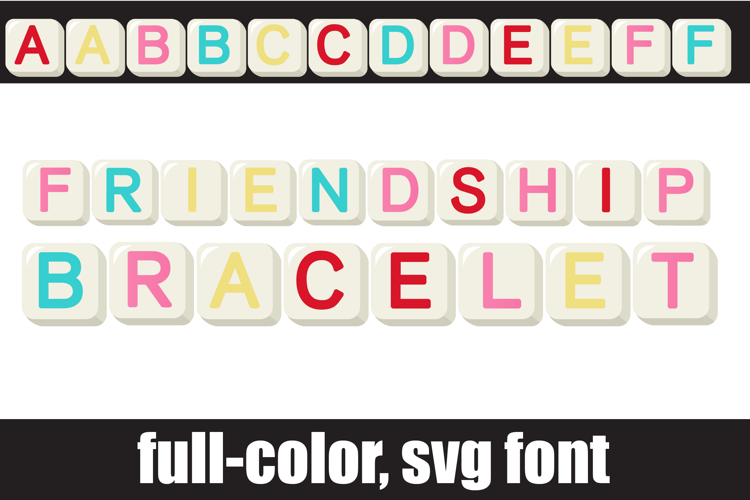
Friendship Bracelet Color Font
This full-color font features bright and fun Friendship Bracelet lettering. There is an alt case of each letter with a different color combination.